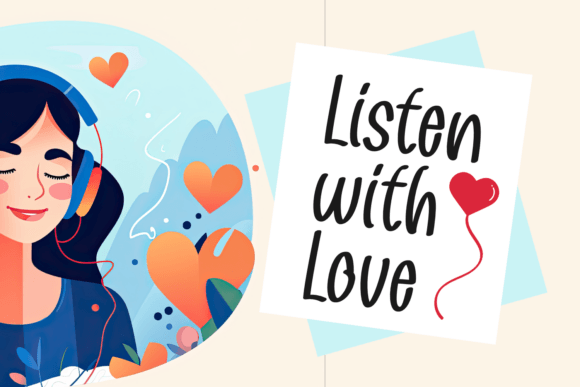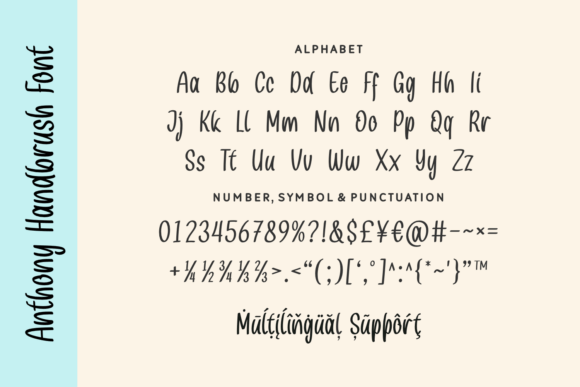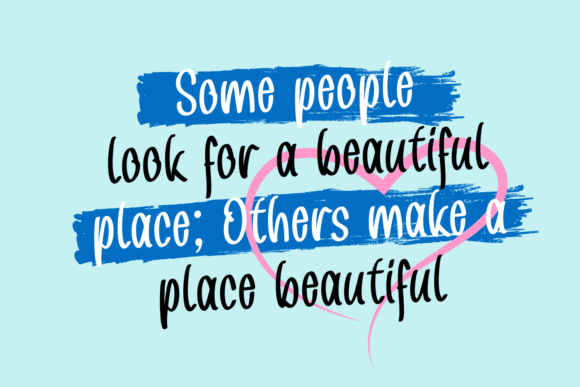
The Charm of Anthony Handbrush Font: A Designer’s New Best Friend
I’ll never forget the time I was working on a wedding invitation project, and my client asked for a font that was “warm, inviting, and personal.” I scoured the internet, tried out dozens of fonts, but nothing seemed quite right. That was until I stumbled upon Anthony Handbrush Font. It was like a breath of fresh air – casual, playful, and uniquely charming. In this article, I’ll share my experience with Anthony Handbrush Font, its features, and how to make the most of it in your designs.
An Honest Review of Anthony Handbrush Font
- ✨ Unique, handwritten style that’s perfect for creative projects
- ✅ Easy to read, even in smaller sizes
- 💕 Friendly, personal feel that’s great for invitations, greeting cards, and more
- 🎨 Versatile – works well for both digital and print designs
While Anthony Handbrush Font is amazing, it’s not perfect. Here are a few things to keep in mind:
- ⚠️ Some letters may appear slightly uneven or irregular, which can be a bit distracting if you’re used to more uniform fonts.
- 🤔 It may not be the best choice for very formal or professional designs, as it has a distinctly casual feel.
A Practical Guide to Using Anthony Handbrush Font
- Experiment with OpenType features, such as ligatures and stylistic alternates, to add more flair to your text.
- Explore the font’s glyphs and OpenType features, such as swashes and alternates, to add more creativity to your design.
The Backstory of Anthony Handbrush Font
Anthony Handbrush Font was designed with the intention of creating a friendly, approachable font that would add a personal touch to any design. The font’s creator aimed to capture the feeling of handwritten text, with all its imperfections and quirks, to make designs feel more relatable and human.
Q: What type of designs is Anthony Handbrush Font best suited for?
A: Anthony Handbrush Font is perfect for creative projects, such as invitations, greeting cards, social media graphics, and more.
Q: Is Anthony Handbrush Font easy to read?
A: Yes, Anthony Handbrush Font is designed to be easy to read, even in smaller sizes.